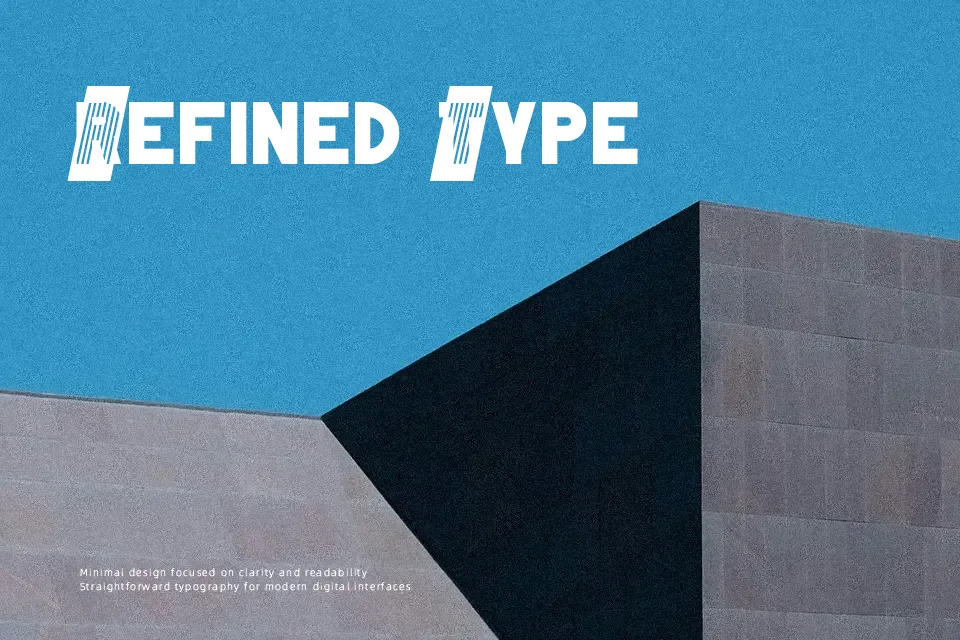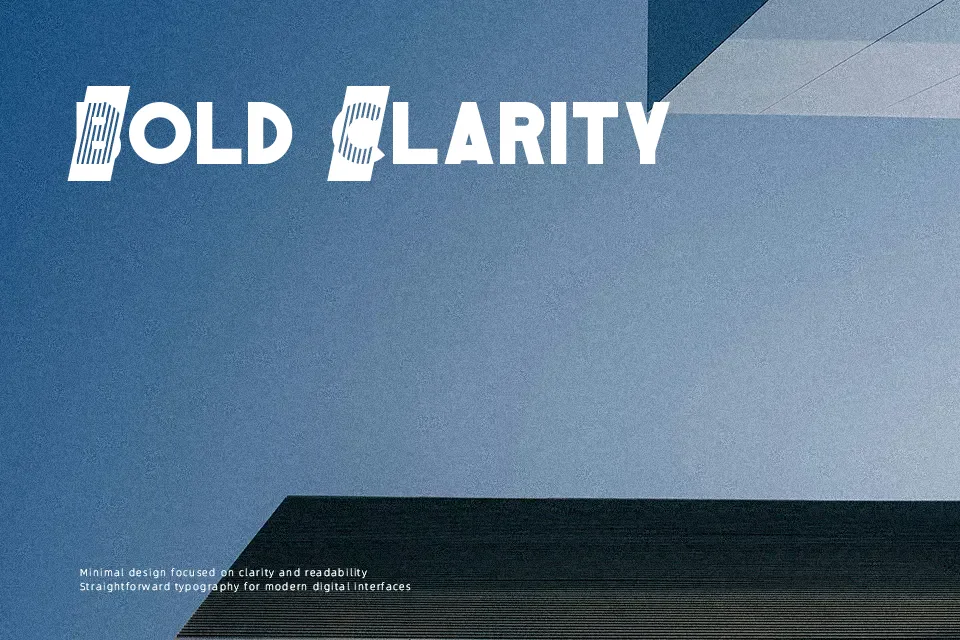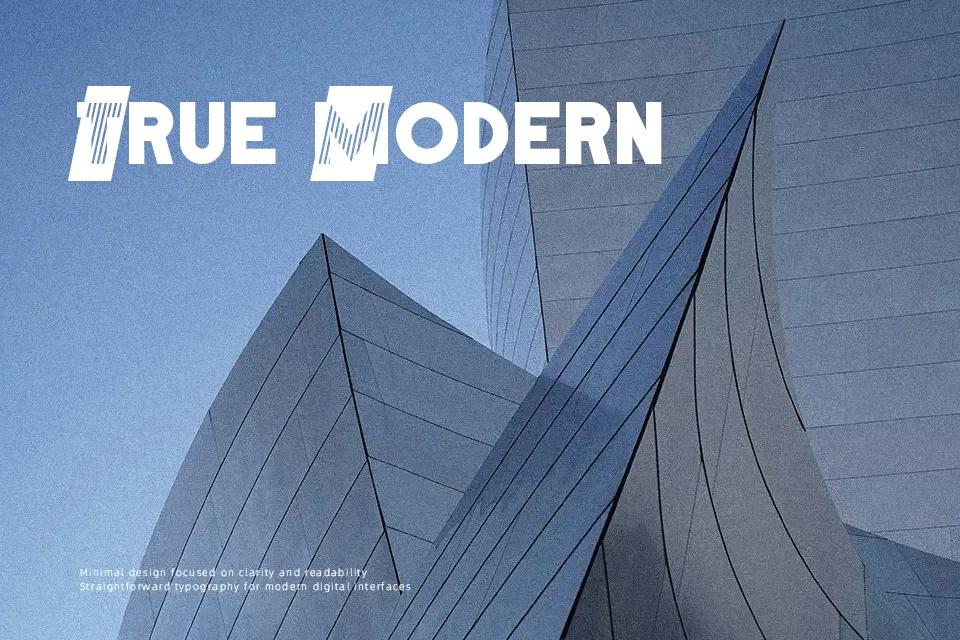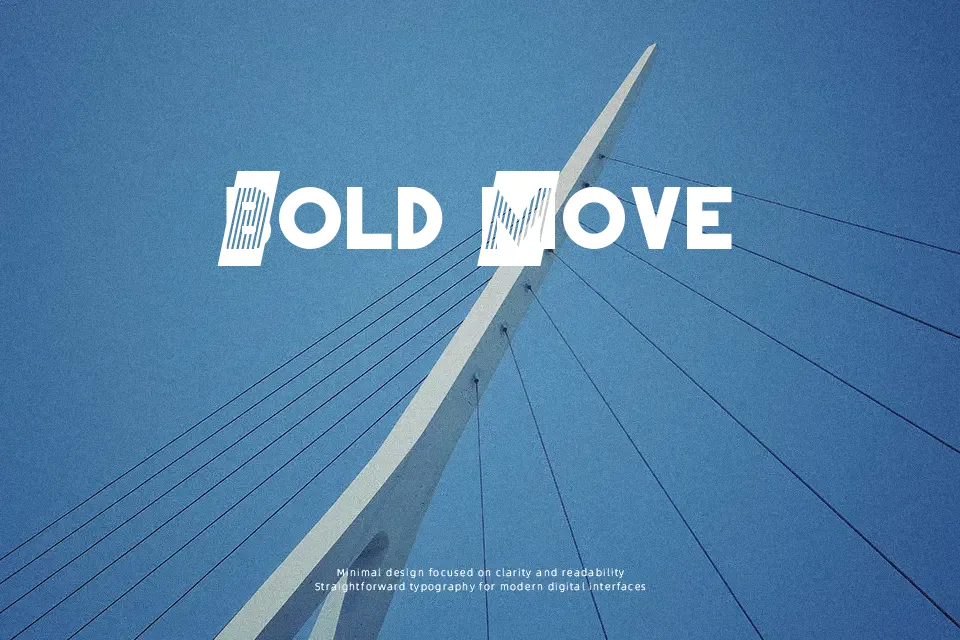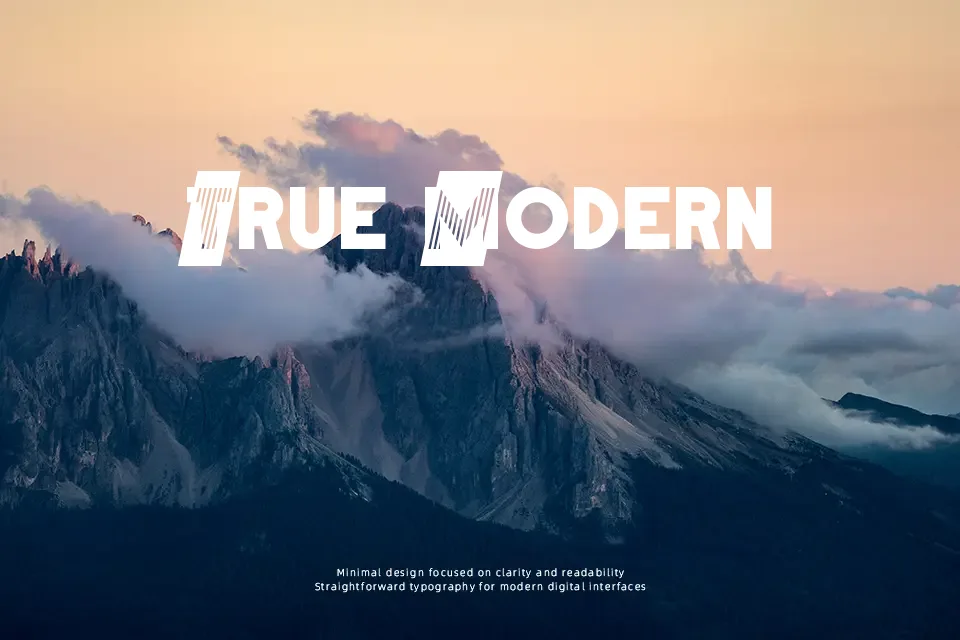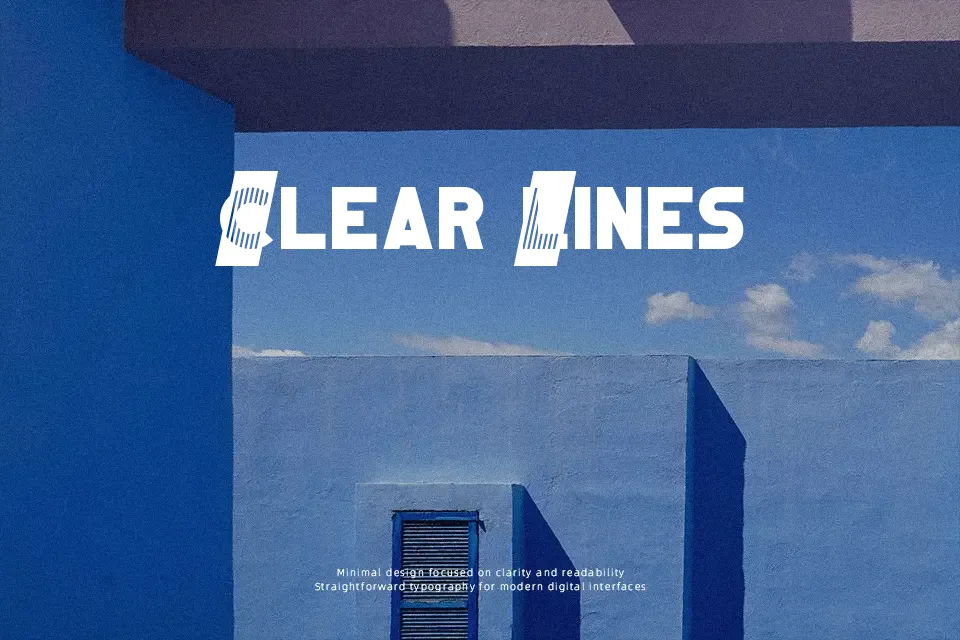
Omentalo Font
Omentalo Font uses geometric display letterforms with sharp corners, slanted construction, and a distinctly digital silhouette. The strokes appear firm and mostly even, while the compact proportions give words a quick, directional rhythm. Uppercase characters are especially suited to bold titles, logos, and graphic-led promotional layouts. Spacing is controlled enough to keep short phrases readable at larger sizes, although the angular detailing can make small text feel crowded. It is a practical choice when a project needs a futuristic heading without relying on overly complex ornament. The typeface is less comfortable for long reading passages or compact interface copy.
Best For: technology event posters,gaming title screens,futuristic logo concepts,website hero headlines
Perfect for gaming, headline, and logo, with a bold and display style.